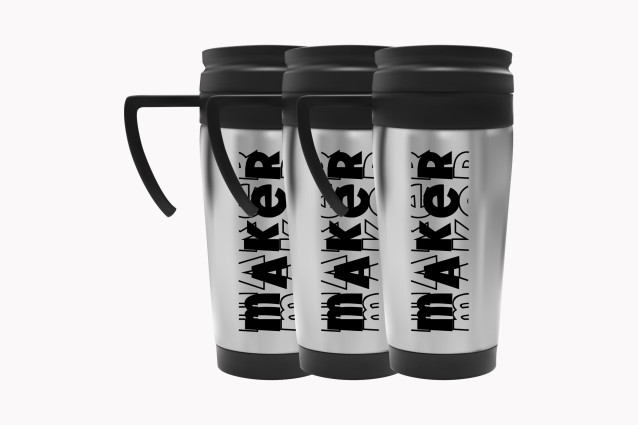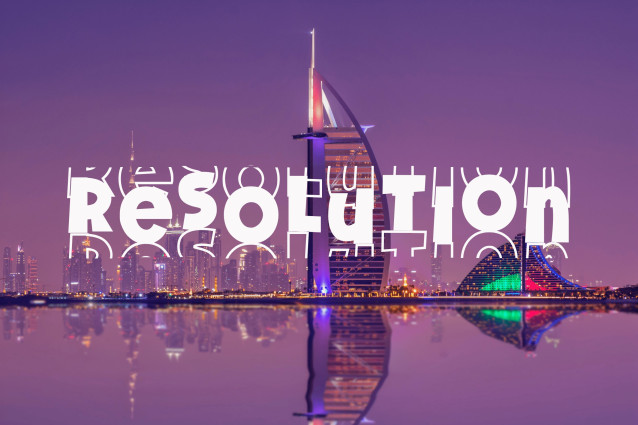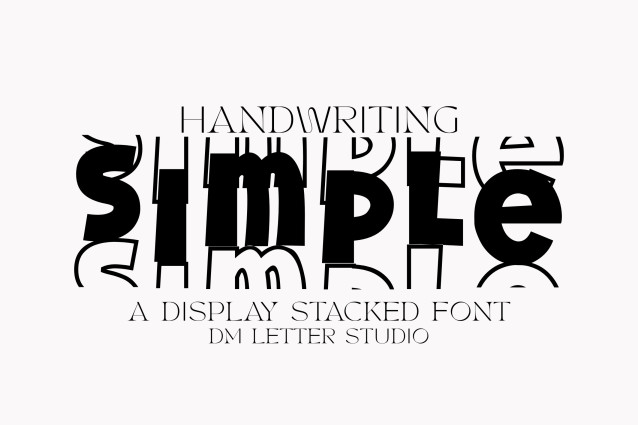
Handwriting Simple Stacked Font
Handwriting Simple Stacked is a clean and charming handwritten font with a vertically stacked structure, designed for simplicity and creative flexibility. Its natural pen-stroke feel and subtle personality make it a perfect choice for monogram projects, name labels, bullet journaling, minimalist branding, and personalized gifts. This font brings an approachable and human touch to your work while keeping a neat and organized look.